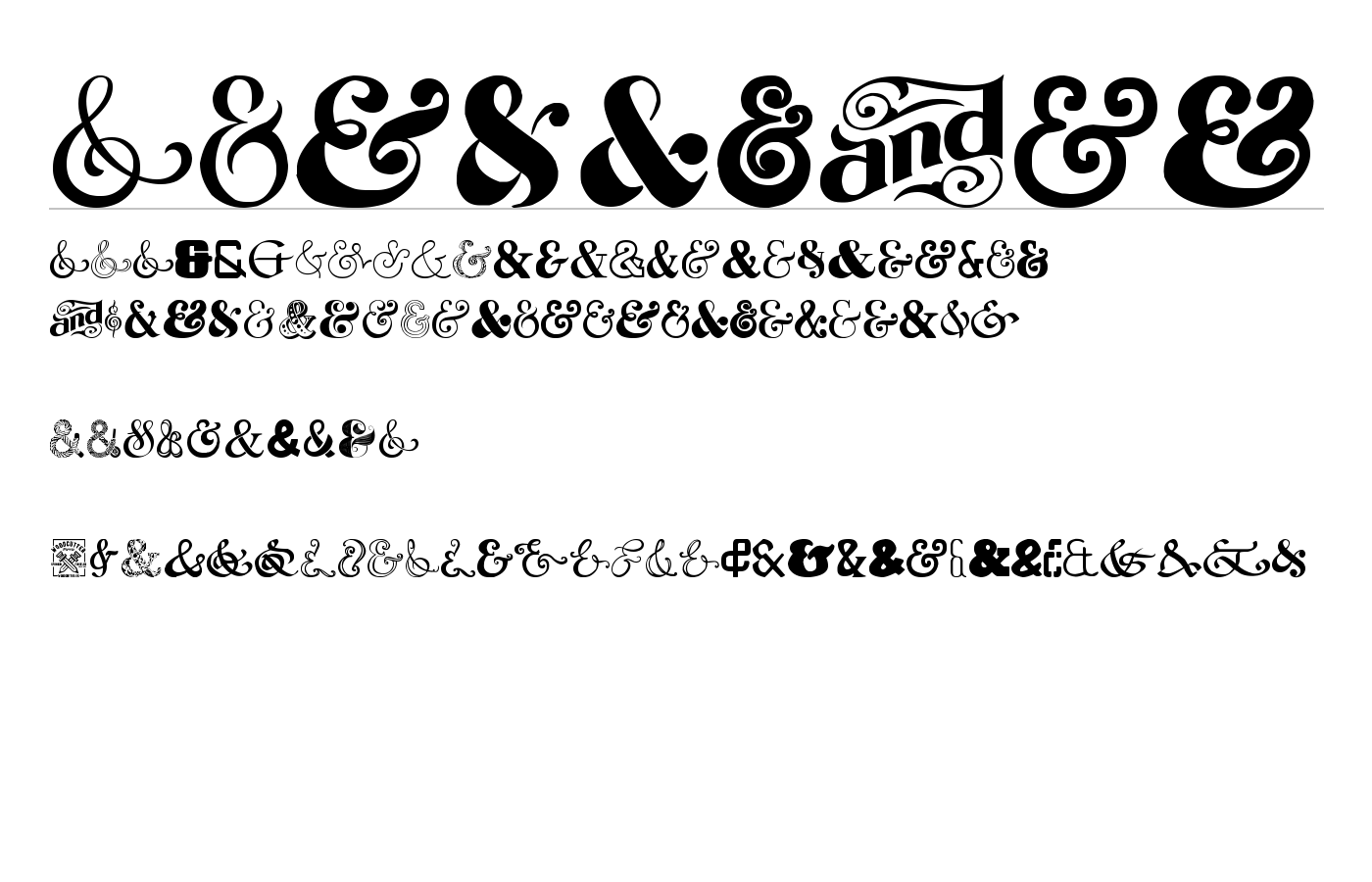
Ampersand Font is a decorative serif typeface that showcases a rich variety of ornate and elaborate ampersand designs, blending vintage elegance with playful creativity. Its bold and highly stylized forms feature strong contrasts and intricate details that make it perfect for eye-catching logos, branding, and decorative headlines where a unique and artistic flair is desired. This font stands out in projects that benefit from a touch of personality and historical charm, making it ideal for luxury packaging, editorial highlights, and display purposes.
Ampersand Font
About Ampersand Font